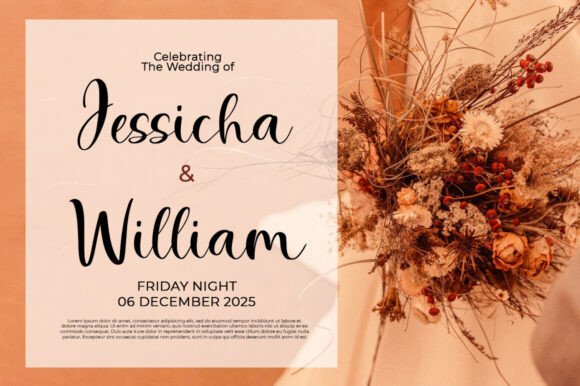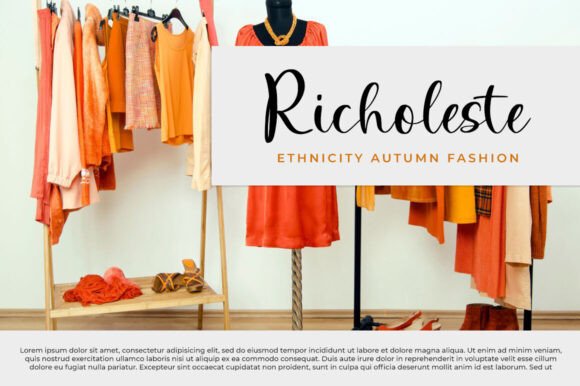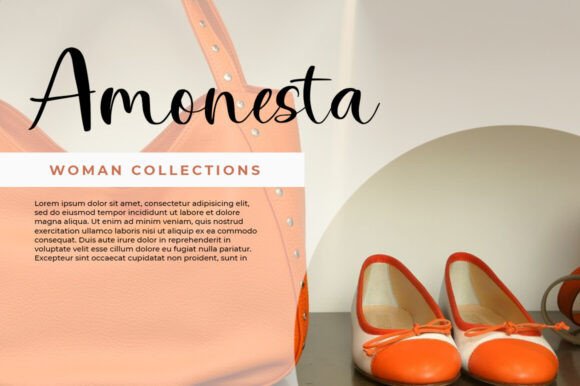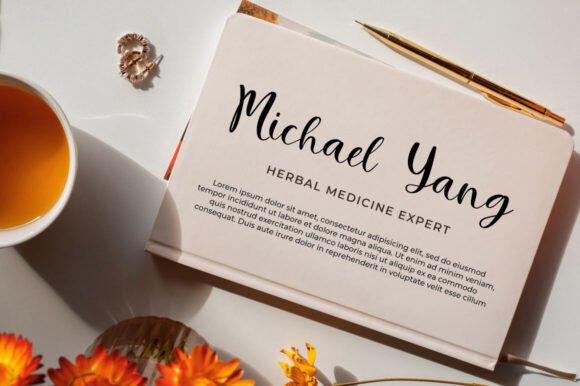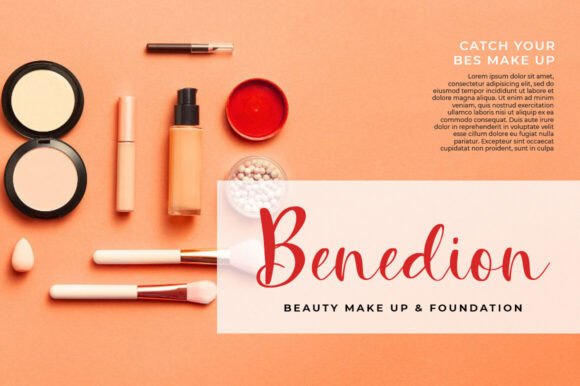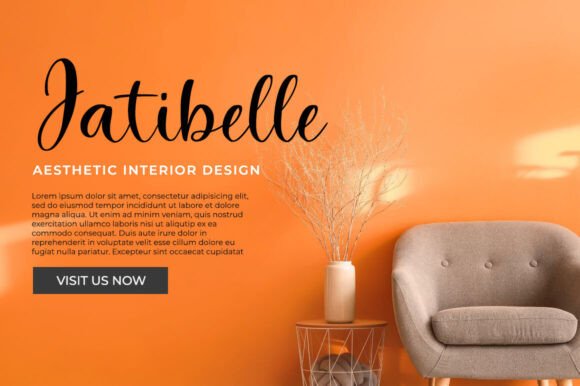
Introduction to Julevasten Font
Have you ever found yourself stuck in a creative rut, searching for the perfect font to bring your project to life? We’ve all been there – pouring over font libraries, scrolling through design resources, and still can’t quite find the right fit. But what if I told you that there’s a font that can elevate your designs, add a touch of elegance, and make your creative project stand out from the crowd?
Enter the Julevasten Font, a stunning script font that’s perfect for any design project that requires a personal touch. With its gorgeous, handwritten style, this font is ideal for logos, branding, invitations, and more. And the best part? It’s available for free download, making it an invaluable design resource for creatives on a budget.
Key Features of Julevasten Font
- High-quality, free download font ideal for creative projects and design resources.
- Unique, hand-drawn style with a transparent background, perfect for adding a personal touch to designs.
- Designed with a high resolution (300 DPI) for crisp and clear display in various sizes and applications.
- Comes in a single font size, making it easy to adjust and customize to suit your design needs.
Honest Review: Julevasten Font
I recently came across the Julevasten Font, and I must say it’s a great addition to any designer’s toolkit. With its free download option, it’s an excellent resource for creative projects on a budget.
- ✨ High-quality typography that’s perfect for headings and titles
- ✨ Unique and elegant design style that adds a touch of sophistication to any design
- ✨ Transparent background, making it easy to layer with other design elements
- ⚠️ Limited character set, which may not be suitable for lengthy texts
- ⚠️ May not be suitable for body text, due to its ornate design
Overall, I’m impressed with the Julevasten Font’s design and functionality. While it may have some limitations, it’s a great resource for designers looking for a high-quality, free font for their creative projects.
The Julevasten Font is a high-quality, free download design resource perfect for creative projects. It offers a unique and elegant touch to any design.
The Julevasten Font is perfect for creative projects, such as: holiday cards, invitations, and social media graphics. It’s also great for designing logos, branding materials, and other marketing materials.
Getting the Most Out of Julevasten Font
To get the most out of Julevasten Font, make sure to: use it on a transparent background to create a seamless design, experiment with different font sizes and styles to add visual interest, and pair it with other design elements to create a cohesive look.